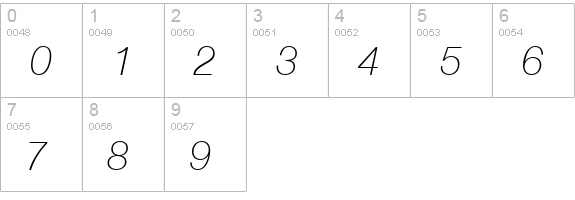
Context Reprise Thin SSi Thin Italic is a delicate, low-contrast, italic variant in the Context typeface family \xE2\x80\x94 well suited to fashion editorial, minimal branding, and high-contrast display.
Context Reprise Thin SSi Thin Italic font is a modern and elegant typeface designed for adding a touch of sophistication to your projects. Its thin and italic style exudes a sense of refinement and grace, making it perfect for use in branding, editorial design, and more. The sleek and contemporary look of this font will elevate any design, giving it a sleek and professional appearance. The best part is that Context Reprise Thin SSi Thin Italic font is freely available to download at FontsMarket.com. This means you can easily access this beautiful font and use it in your projects without any cost. Whether you're working on a personal project or a professional design, this font is a fantastic choice to add a touch of class and style. Download Context Reprise Thin SSi Thin Italic font today and elevate your designs to the next level.